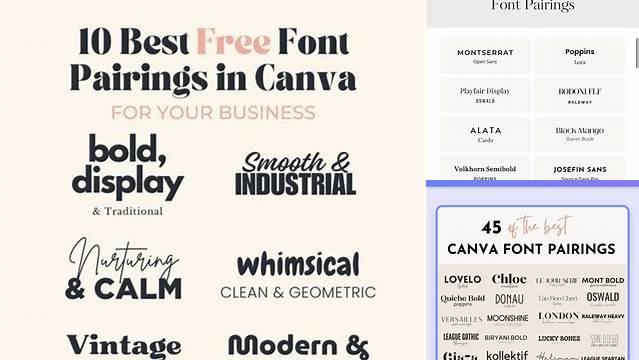
Top Free Canva Font Pairings For Stunning Designs
Finding the perfect font pairing can be a game-changer for your design projects. In this article, we're diving deep into the best free Canva font pairings that will elevate your designs from basic to brilliant. Whether you're a seasoned designer or just starting out, understanding how fonts work together can make a huge difference. So, let's get started and explore some fantastic combinations!
1. Classic Serif and Sans-Serif Combos
One of the most reliable approaches when exploring the best free Canva font pairings is to combine a serif font with a sans-serif font. This contrast creates a visual hierarchy that is both pleasing and easy to read. Think of it like this: the serif font brings a touch of tradition and elegance, while the sans-serif font offers a modern, clean feel. In Canva, try pairing 'Lora' (a beautiful serif) with 'Montserrat' (a clean sans-serif). Lora works wonderfully for headlines, bringing a sophisticated touch, while Montserrat is perfect for body text, ensuring readability. You could also experiment with 'Playfair Display' for headings and 'Open Sans' for the body. Playfair Display exudes a certain refined charm, and Open Sans is incredibly versatile, making it a great choice for various design needs. This classic combination is a surefire way to make your designs look professional and polished. Remember, the goal is to create balance – the serif font adds character, while the sans-serif font keeps things grounded.
2. Modern Sans-Serif Pairings
For a contemporary and sleek aesthetic, sticking with sans-serif fonts for your best free Canva font pairings can be incredibly effective. The key here is to find sans-serif fonts that complement each other without being too similar. For example, pairing 'Raleway' with 'Lato' offers a harmonious balance. Raleway is slightly more decorative and works well for headings, while Lato is clean and understated, perfect for body text. Another great option is using different weights of the same font family. For instance, using 'Poppins' in bold for headings and regular for the body text creates a cohesive yet visually distinct look. This approach ensures consistency while still providing enough contrast to guide the reader's eye. Modern sans-serif pairings are ideal for tech startups, minimalist designs, or anything that needs a clean, uncluttered feel. Always consider the overall tone of your design and choose fonts that reflect that vibe.
3. Playful Script and Simple Sans-Serif
If you're aiming for a design that feels friendly and approachable, combining a playful script font with a simple sans-serif font is a fantastic strategy for the best free Canva font pairings. Script fonts add a touch of personality and whimsy, while sans-serif fonts ensure the design remains readable and balanced. A great example is pairing 'Pacifico' with 'Roboto'. Pacifico has a casual, handwritten feel that works wonderfully for logos or short headings, while Roboto is a clean, modern sans-serif that's perfect for longer text blocks. Another option is to use 'Dancing Script' for headings and 'Open Sans' for the body. Dancing Script adds a touch of elegance and fun, while Open Sans provides the necessary clarity for the main content. When using script fonts, remember to use them sparingly – too much script can make your design look cluttered and difficult to read. The goal is to create a balance where the script font adds a unique flair without sacrificing readability.
4. Elegant Serif Combinations
For designs that need to exude sophistication and elegance, sticking with serif fonts for your best free Canva font pairings can be a brilliant choice. The key is to find serif fonts that complement each other in terms of style and weight. One excellent combination is pairing 'Playfair Display' with 'Merriweather'. Playfair Display has a refined and decorative look that works beautifully for headings, while Merriweather is a sturdy and readable serif font that's perfect for body text. The contrast in their weights and styles creates a visually appealing hierarchy. Another option is to use 'Lora' for headings and 'Domine' for the body. Lora brings a touch of modern elegance, while Domine provides a strong, classic feel. When working with serif combinations, pay attention to the details – the spacing, the letterforms, and the overall texture of the fonts. The goal is to create a harmonious blend that feels both luxurious and easy on the eyes. Elegant serif combinations are perfect for branding, editorial design, and invitations.
5. Vintage-Inspired Font Pairings
If you're looking to evoke a sense of nostalgia or create a vintage aesthetic, choosing the best free Canva font pairings that reflect that era is crucial. Think about combining fonts that have a retro feel, such as a bold slab serif with a classic sans-serif. One great option is pairing 'Arvo' with 'Oswald'. Arvo is a slab serif with a strong, industrial vibe that works well for headlines, while Oswald is a condensed sans-serif that provides a clean and readable counterpoint for body text. Another excellent choice is using 'Bree Serif' for headings and 'Cabin' for the body. Bree Serif has a slightly quirky and vintage feel, while Cabin is a modern sans-serif that balances it out perfectly. When selecting vintage-inspired fonts, consider the specific era you're trying to emulate – the fonts from the 1920s have a different feel than those from the 1970s. The goal is to create a cohesive look that transports your audience back in time.
6. Bold and Minimalist Pairings
For a bold and minimalist design, the best free Canva font pairings need to be simple, clean, and impactful. The idea is to use fonts that make a statement without being overly decorative. One effective combination is pairing a bold sans-serif like 'Bebas Neue' with a lighter sans-serif like 'Open Sans'. Bebas Neue is tall and impactful, perfect for headings, while Open Sans provides a clean and readable base for body text. Another option is to use different weights of the same font family, such as 'Montserrat' in extra bold for headings and regular for the body. This approach ensures consistency while still providing visual contrast. When working with bold and minimalist pairings, pay attention to the spacing and alignment of your text. Clean lines and ample white space are essential for achieving a modern and uncluttered look. This style is ideal for brands that want to project confidence and simplicity.
7. Contrasting Font Weights
Using contrasting font weights is a simple yet effective way to create visual interest and hierarchy in your designs, making it one of the best free Canva font pairings. By pairing a bold font with a light or regular weight font, you can draw attention to specific elements and guide the reader's eye. For example, using 'Roboto' in bold for headings and 'Roboto' in light for the body text creates a cohesive yet visually distinct look. Another great option is pairing 'Montserrat' in extra bold for titles with 'Lato' in regular weight for paragraphs. The key is to ensure that the contrast is strong enough to be noticeable but not so overwhelming that it becomes distracting. This technique works well with both serif and sans-serif fonts and can be applied to a variety of design styles. Experiment with different weights to find the perfect balance for your project.
8. Combining Display Fonts
Display fonts are designed to be eye-catching and attention-grabbing, making them perfect for headlines and short bursts of text. When considering the best free Canva font pairings, combining two display fonts can be a bold move, but it can also be incredibly effective if done right. The key is to choose fonts that complement each other rather than compete. For instance, pairing a script display font like 'Pacifico' with a bold sans-serif display font like 'Bebas Neue' can create a dynamic and visually appealing contrast. However, it's crucial to use this combination sparingly and ensure that the overall design remains balanced and readable. Another approach is to combine two different styles of display fonts, such as a vintage-inspired font with a modern geometric font. Always consider the context of your design and choose fonts that reflect the overall message and tone.
9. Monospace with Sans-Serif
Pairing a monospace font with a sans-serif font is a unique and modern approach that can add a distinctive touch to your designs, making it one of the best free Canva font pairings for certain projects. Monospace fonts, where each character takes up the same amount of horizontal space, have a technical and somewhat retro feel. Combining this with a clean sans-serif font can create an interesting contrast. For example, using 'Courier Prime' (a monospace font) for code snippets or short labels and 'Open Sans' for the body text can be very effective. Another option is to use 'VT323' (another monospace font) for headings and 'Lato' for the body. The key is to use the monospace font sparingly and in a way that complements the overall design. This pairing is particularly well-suited for designs related to technology, programming, or data visualization.
10. Geometric Sans-Serif Harmony
Geometric sans-serif fonts are characterized by their clean lines, simple shapes, and overall modern aesthetic. When considering the best free Canva font pairings, combining two geometric sans-serif fonts can create a harmonious and visually appealing design. The key is to choose fonts that complement each other in terms of weight, style, and spacing. For example, pairing 'Montserrat' with 'Raleway' offers a subtle yet effective contrast. Montserrat is slightly more rounded and works well for headings, while Raleway is clean and understated, perfect for body text. Another great option is to use different weights of the same font family, such as 'Poppins' in bold for headings and regular for the body text. This approach ensures consistency while still providing enough visual distinction. Geometric sans-serif pairings are ideal for tech startups, minimalist designs, and anything that needs a clean, uncluttered feel.
11. Handwritten Fonts with Clean Sans-Serifs
Using handwritten fonts can add a personal and artistic touch to your designs. When considering the best free Canva font pairings, pairing a handwritten font with a clean sans-serif font can create a beautiful balance between informality and readability. For example, combining 'Permanent Marker' with 'Roboto' can add a playful yet legible feel. Use 'Permanent Marker' for headings or short quotes and 'Roboto' for the main body text. Alternatively, 'Coming Soon' paired with 'Open Sans' offers a similar effect, with 'Coming Soon' adding a whimsical touch while 'Open Sans' ensures clarity. This combination works particularly well for blog headers, invitations, and social media graphics where you want to convey a friendly and approachable vibe. The key is to use the handwritten font sparingly to maintain readability and ensure it complements the overall design.
12. Slab Serif and Sans-Serif Mix
A slab serif font, with its bold, block-like serifs, can bring a strong and grounded feel to your design. When seeking the best free Canva font pairings, combining a slab serif with a clean sans-serif can create an impactful visual contrast. For instance, pairing 'Roboto Slab' with 'Roboto' provides a cohesive yet distinct look. Use 'Roboto Slab' for titles or headings to draw attention, and 'Roboto' for the body text to ensure readability. Another great pairing is 'Arvo' with 'Lato,' where 'Arvo' adds a touch of vintage charm and 'Lato' keeps the overall design modern and clean. This combination is effective for posters, websites, and branding materials where you want to convey a sense of stability and trustworthiness. Always ensure the slab serif is used strategically to enhance, not overwhelm, the design.
13. Retro Script and Modern Sans-Serif
To capture a vintage or nostalgic feel, consider combining a retro script font with a modern sans-serif for the best free Canva font pairings. Retro script fonts often have a flowing, cursive style that evokes a sense of classic elegance, while modern sans-serifs provide a clean and contemporary balance. For example, 'Lobster Two' paired with 'Montserrat' can create a striking contrast. Use 'Lobster Two' sparingly for headings or decorative elements and 'Montserrat' for body text to maintain readability. Another option is 'Pacifico' with 'Lato,' where 'Pacifico' adds a friendly and approachable touch. This combination is perfect for designs that aim to blend vintage charm with modern sensibilities, such as event posters, logos, and social media content. Make sure the script font enhances the overall design without compromising clarity.
14. Playful and Professional Combos
Achieving a balance between playfulness and professionalism in design can be tricky, but choosing the best free Canva font pairings can help you strike the right chord. Combine a playful font with a more serious, professional one to create an engaging yet credible look. For example, 'Luckiest Guy' paired with 'Roboto' offers a fun yet grounded feel. Use 'Luckiest Guy' for headings or short, attention-grabbing text and 'Roboto' for the main body. Another effective pairing is 'Bubblegum Sans' with 'Open Sans,' where 'Bubblegum Sans' adds a lighthearted touch. This combination is ideal for marketing materials, educational content, and websites that want to appeal to a broad audience. Ensure the playful font is used in moderation to maintain a sense of professionalism.
15. High-Contrast Font Pairings
Creating a high-contrast font pairing is an excellent way to make your design stand out. When selecting the best free Canva font pairings, consider combining fonts that are significantly different in terms of weight, style, and size to create visual interest. For example, pairing a bold serif font like 'Playfair Display Black' with a light sans-serif font like 'Open Sans Light' can create a striking effect. Another option is combining a tall, condensed font like 'Bebas Neue' with a shorter, wider font like 'Roboto Condensed'. High-contrast pairings work well for headlines, posters, and other designs where you want to grab the viewer's attention. However, it's important to use contrast judiciously to avoid making the design feel cluttered or overwhelming.
16. Monospaced with Serif
Pairing a monospaced font with a serif font can create a unique and balanced look, blending the technical with the traditional. When considering the best free Canva font pairings, this combination can be particularly effective for designs that aim to convey both precision and readability. For example, using 'Courier Prime' for code snippets or emphasized text and 'Merriweather' for the main body creates a functional yet stylish contrast. Another option is 'Inconsolata' paired with 'Lora,' where 'Inconsolata' provides a technical feel and 'Lora' adds a touch of elegance. This pairing is well-suited for websites, resumes, and documents that require a blend of technical and professional elements. Ensure the monospaced font is used purposefully to enhance the overall design.
17. Modern Serif and Clean Sans-Serif
To achieve a contemporary and sophisticated design, consider pairing a modern serif font with a clean sans-serif for the best free Canva font pairings. This combination blends the elegance of serifs with the simplicity of sans-serifs, creating a balanced and visually appealing look. For example, 'Lora' paired with 'Montserrat' is a classic choice, with 'Lora' providing a stylish touch to headings and 'Montserrat' ensuring readability in body text. Another effective pairing is 'Playfair Display' with 'Open Sans,' where 'Playfair Display' adds a touch of luxury. This combination is perfect for branding, websites, and marketing materials that aim to convey modernity and sophistication.
18. Vintage Sans-Serif Combinations
Creating a vintage aesthetic with sans-serif fonts requires careful selection to capture the right era and feel. When exploring the best free Canva font pairings, combining two vintage-style sans-serifs can result in a cohesive and nostalgic design. For example, pairing 'Oswald' with 'Raleway' offers a subtle yet effective retro vibe. Use 'Oswald' for headings to draw attention and 'Raleway' for body text to maintain readability. Another great combination is 'Cabin' with 'Nunito Sans,' where 'Cabin' provides a slightly condensed feel and 'Nunito Sans' adds a rounded touch. This pairing is ideal for posters, logos, and websites that aim to evoke a sense of the past. Pay attention to kerning and spacing to enhance the vintage feel.
19. Combining Different Eras of Fonts
Mixing fonts from different eras can create a dynamic and visually engaging design, but it requires a keen eye to ensure harmony. When looking for the best free Canva font pairings, consider blending a font from the early 20th century with one from the late 20th or early 21st century. For example, pairing 'Arvo' (a slab serif with a strong, industrial vibe) with 'Lato' (a modern sans-serif) can create an interesting contrast. 'Bebas Neue' (a tall, impactful sans-serif) with 'Lora' (a modern serif) can also be effective. This approach works well for designs that want to convey a sense of timelessness or bridge the gap between tradition and modernity. However, it's important to use this technique judiciously to avoid creating a disjointed or confusing design.
20. Font Pairings for Headlines
Headlines are crucial for grabbing attention, so choosing the right font pairings is essential. When considering the best free Canva font pairings specifically for headlines, focus on combinations that are bold, readable, and visually appealing. A classic choice is pairing a serif font like 'Playfair Display' with a sans-serif font like 'Montserrat' for the body. Using two contrasting sans-serif fonts can also be effective, such as 'Bebas Neue' for the main headline and 'Roboto' for subheadings or supporting text. Another option is to use different weights of the same font family, such as 'Oswald' in bold for the headline and 'Oswald' in regular for the subheadings. The goal is to create a clear visual hierarchy that draws the reader's eye and encourages them to engage with the content.
21. Font Pairings for Body Text
Readability is paramount when selecting fonts for body text. When considering the best free Canva font pairings for this purpose, opt for combinations that are easy on the eyes and don't cause fatigue. A classic and reliable choice is pairing a clean sans-serif font like 'Open Sans' with a slightly more decorative serif font like 'Merriweather' or 'Lora' for headings. Sticking with sans-serif fonts for both headings and body text can also work well, especially if you choose fonts with different weights or styles, such as 'Roboto' for the body and 'Roboto Bold' for headings. Another great option is 'Lato' for the body and 'Montserrat' for headings. The key is to ensure that the body text is legible and comfortable to read, even in long blocks of text.
22. Font Pairings for Logos
Your logo is a critical part of your brand identity, and the fonts you choose can have a significant impact. When considering the best free Canva font pairings for logos, think about combinations that reflect your brand's personality and values. A popular choice is pairing a bold, modern sans-serif font like 'Bebas Neue' with a softer, more approachable sans-serif font like 'Raleway'. If your brand has a more traditional or elegant feel, consider pairing a serif font like 'Playfair Display' with a clean sans-serif font like 'Montserrat'. For a more playful or creative brand, you might choose a script font like 'Pacifico' paired with a simple sans-serif font like 'Roboto'. Ultimately, the best font pairing for your logo will depend on your brand's unique identity and target audience.
23. Font Pairings for Social Media Graphics
Social media graphics need to be eye-catching and easy to read, so choosing the right font pairings is crucial. When considering the best free Canva font pairings for social media, opt for combinations that are visually appealing and work well in a variety of sizes and formats. A popular choice is pairing a bold, attention-grabbing font like 'Bebas Neue' with a clean, readable font like 'Open Sans'. For a more playful or casual look, you might choose a script font like 'Dancing Script' paired with a simple sans-serif font like 'Lato'. Another effective combination is using different weights of the same font family, such as 'Montserrat' in bold for headlines and 'Montserrat' in regular for body text or captions. The goal is to create graphics that stand out in the crowded social media landscape and effectively communicate your message.
24. Best Font Pairings for Print
When designing for print, readability is paramount, and the right font pairings can make all the difference. When considering the best free Canva font pairings for print materials, choose fonts that are clear, crisp, and easy on the eyes. A classic combination is pairing a serif font like 'Garamond' or 'Times New Roman' with a sans-serif font like 'Helvetica' or 'Arial' for headings. For body text, stick with tried-and-true serif fonts like 'Garamond,' 'Times New Roman,' or 'Book Antiqua.' If you prefer sans-serif fonts for body text, 'Open Sans' and 'Lato' are excellent choices. Avoid using overly decorative or script fonts in large blocks of text, as they can be difficult to read. The goal is to create print materials that are visually appealing and easy to navigate.
25. Best Font Pairings for Web Design
In web design, choosing the right font pairings is crucial for creating a user-friendly and visually appealing experience. When considering the best free Canva font pairings for websites, opt for combinations that are readable on screens of all sizes and that complement your site's overall design. A popular choice is pairing a clean sans-serif font like 'Open Sans' or 'Roboto' with a slightly more decorative serif font like 'Merriweather' or 'Lora' for headings. If you prefer to stick with sans-serif fonts, try pairing 'Lato' with 'Montserrat' or using different weights of the same font family, such as 'Oswald' in bold for headings and 'Oswald' in regular for body text. Always test your font pairings on different devices and browsers to ensure they render correctly and are easy to read.
26. Using Font Size to Enhance Pairings
Font size plays a crucial role in how effective your font pairings are. Experimenting with different font sizes can create visual hierarchy and draw attention to specific elements. When considering the best free Canva font pairings, make sure the font sizes complement each other to improve readability and visual appeal. For example, use a larger size for headings with 'Playfair Display' and a smaller, more legible size for body text with 'Open Sans'. Another approach is to use consistent size ratios, such as a 2:1 or 3:1 ratio between headings and body text. This ensures that the different elements of your design are well-balanced and easy to read. Always test your font sizes on various devices to ensure they display correctly.
27. The Psychology of Font Choices
The fonts you choose can evoke specific emotions and perceptions, influencing how your audience perceives your message. Understanding the psychology behind font choices can help you select the best free Canva font pairings that align with your brand's personality and goals. Serif fonts, such as 'Times New Roman' and 'Garamond,' often convey a sense of tradition, authority, and trustworthiness. Sans-serif fonts, like 'Open Sans' and 'Roboto,' tend to be perceived as modern, clean, and approachable. Script fonts, such as 'Pacifico' and 'Dancing Script,' can evoke feelings of creativity, playfulness, or elegance. Consider the emotional impact of each font and choose pairings that reinforce your brand's message and resonate with your target audience.
28. Creating a Font Style Guide
Consistency is key to building a strong and recognizable brand, and a font style guide can help you maintain consistency across all your designs. When determining the best free Canva font pairings, creating a style guide ensures you use fonts purposefully and uniformly. Your style guide should include primary and secondary font choices, font sizes for headings and body text, and guidelines for their usage. For example, you might specify that 'Montserrat' is your primary font for headings and 'Lato' is your secondary font for body text. Include visual examples of how the fonts should be used in different contexts, such as on your website, in marketing materials, and on social media. Share your style guide with your team to ensure everyone is on the same page and using the fonts correctly.
29. Troubleshooting Common Font Pairing Issues
Even with the best intentions, font pairings can sometimes present challenges. Knowing how to troubleshoot common issues can save you time and frustration. One common problem is poor readability, which can be caused by using fonts that are too similar or that have poor contrast. To fix this, try pairing a bold font with a lighter one or using different font sizes to create visual hierarchy. Another issue is visual clutter, which can occur when using too many fonts or overly decorative fonts. Simplify your design by limiting the number of fonts and choosing simpler, more legible options. If your fonts are not rendering correctly on certain devices or browsers, try using web-safe fonts or embedding the fonts directly into your website or document.
30. Advanced Font Pairing Techniques
For those looking to push their design skills further, mastering advanced font pairing techniques can elevate your work to a new level. When seeking the best free Canva font pairings, these techniques involve more nuanced considerations. One advanced technique is using font families creatively, such as pairing different weights and styles within the same family to create visual interest. Another technique is combining fonts from different eras or cultures to create a unique and unexpected look. Experimenting with kerning and letter spacing can also enhance the visual appeal of your font pairings. Pay attention to the overall texture and rhythm of your design, and use fonts to create a cohesive and visually harmonious composition. Continuously study and analyze the work of other designers to refine your eye and develop your own unique font pairing style.